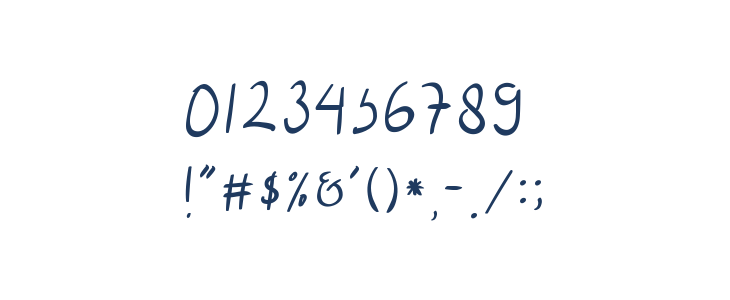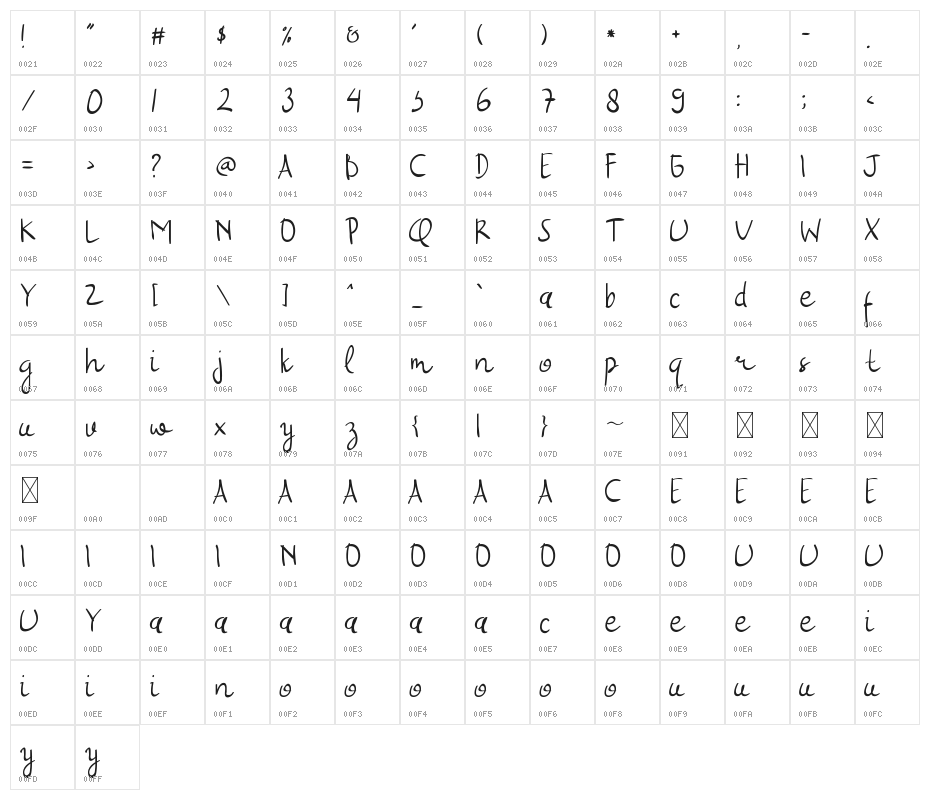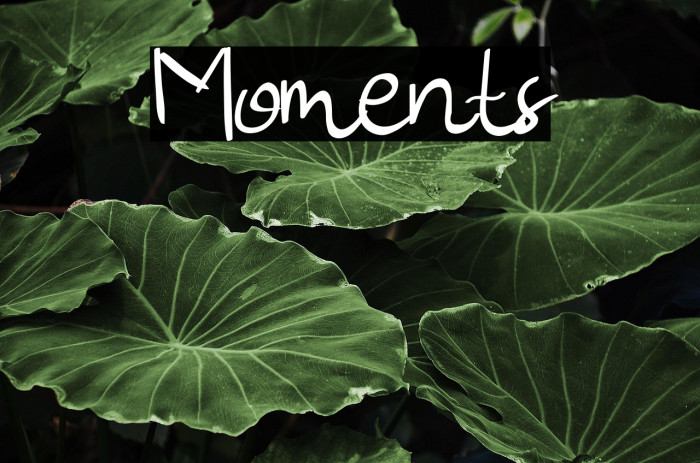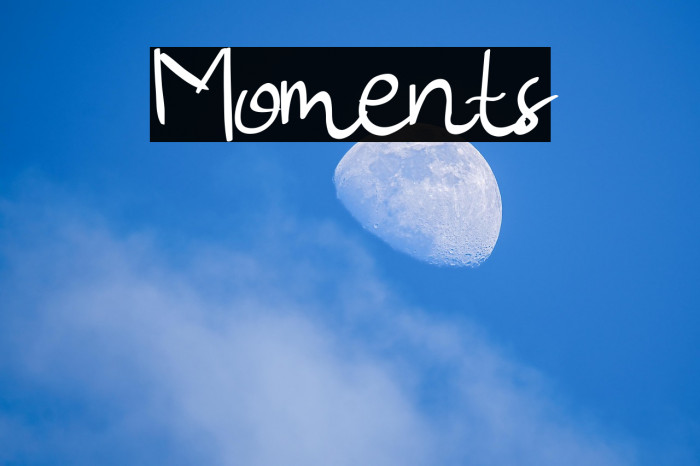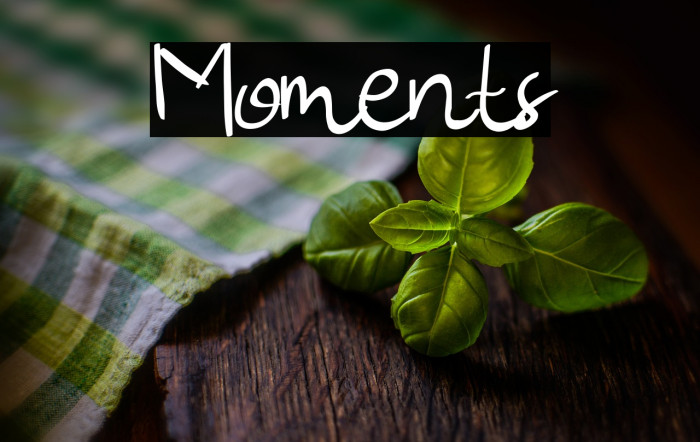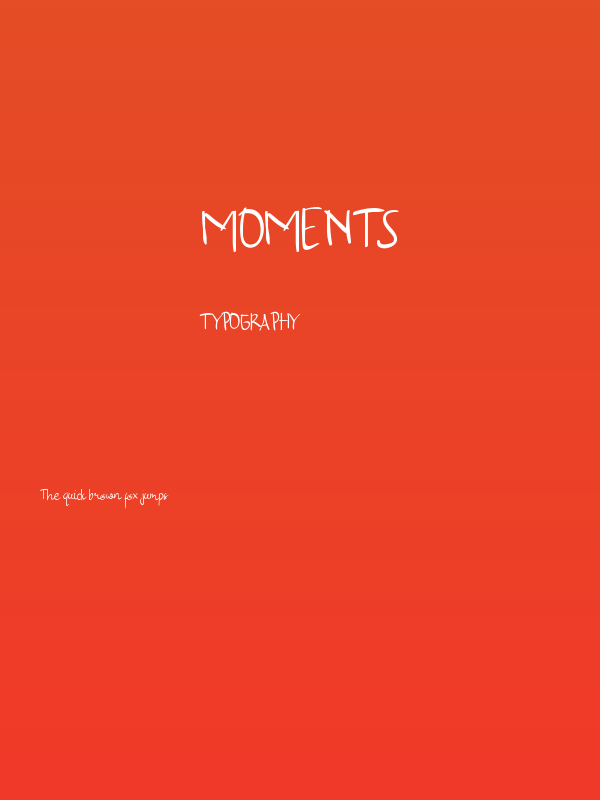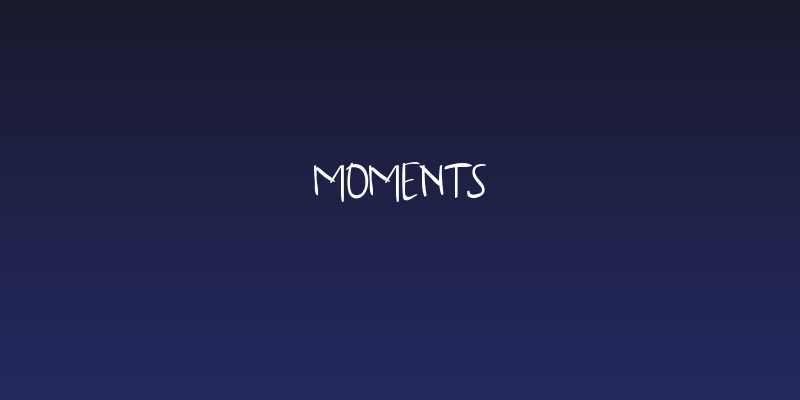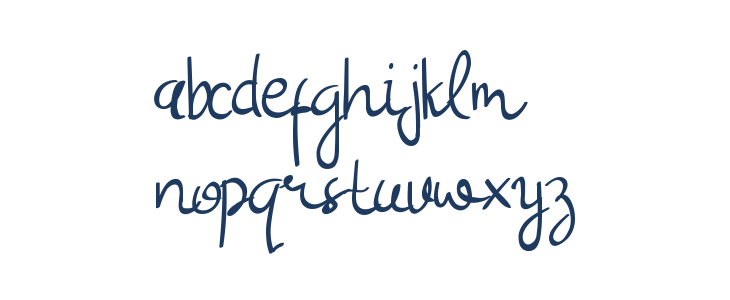
Moments Font
Moments Description
This font exudes a playful and casual handwritten style, characterized by its fluid and slightly irregular strokes. The letters have a natural flow, with varying heights and a slight slant that adds to its informal charm. The uppercase letters are bold and prominent, while the lowercase letters maintain a consistent rhythm, enhancing readability. The numerals are well-proportioned, and the special characters are creatively integrated, maintaining the overall whimsical aesthetic. This font is ideal for projects that require a personal touch, such as greeting cards, invitations, or creative branding.
| Use Case | Headlines, Creative projects |
| Proposed Projects | Ideal for greeting cards, invitations, and creative branding. |